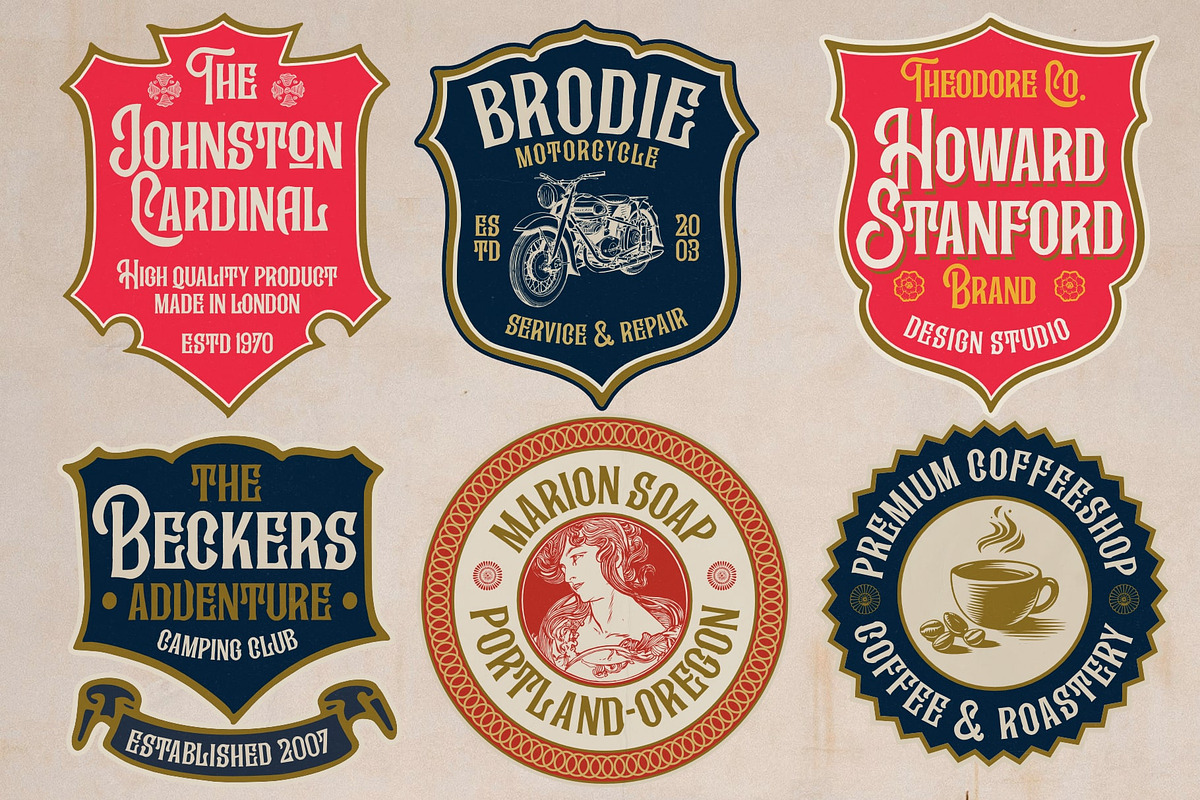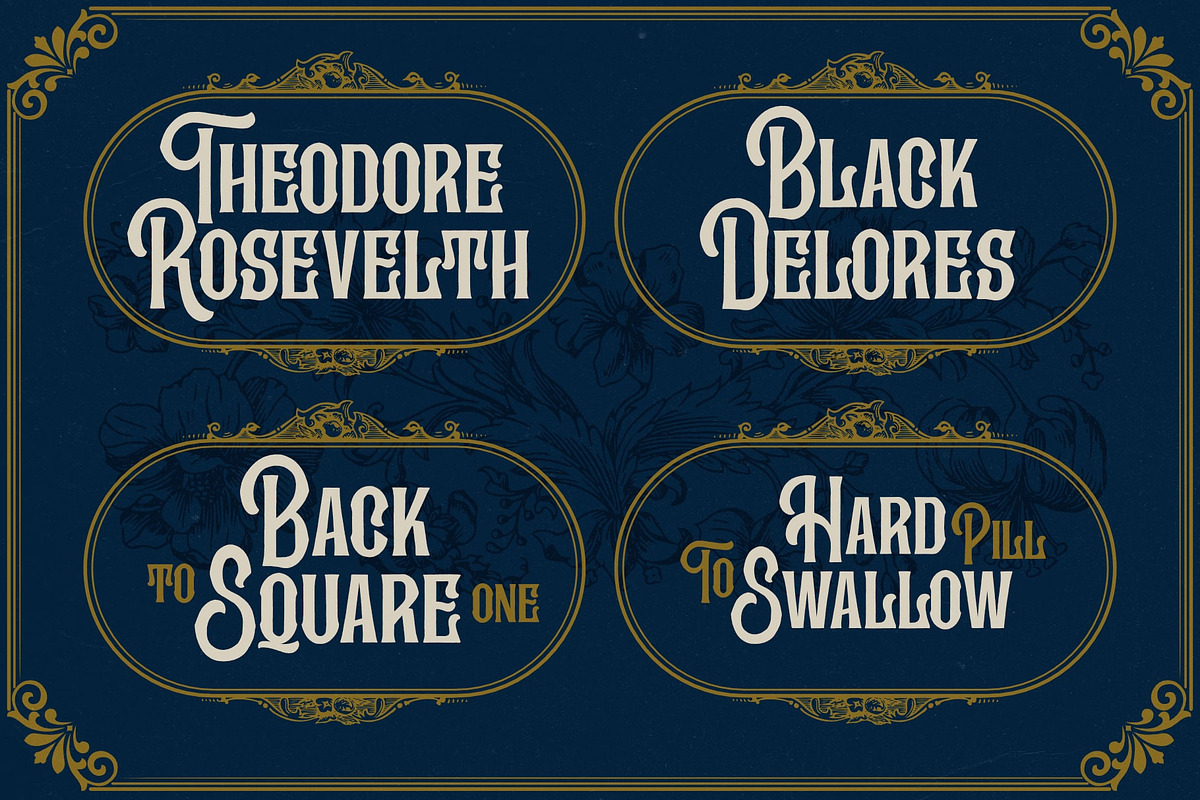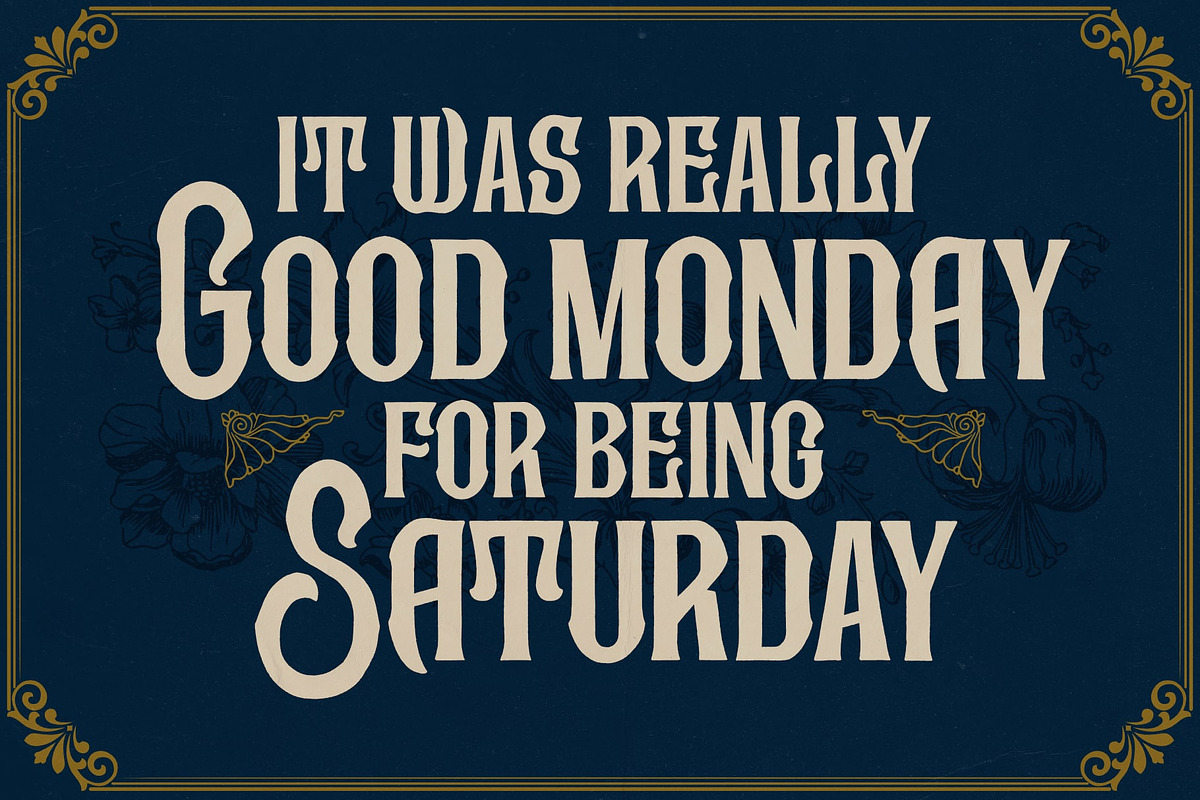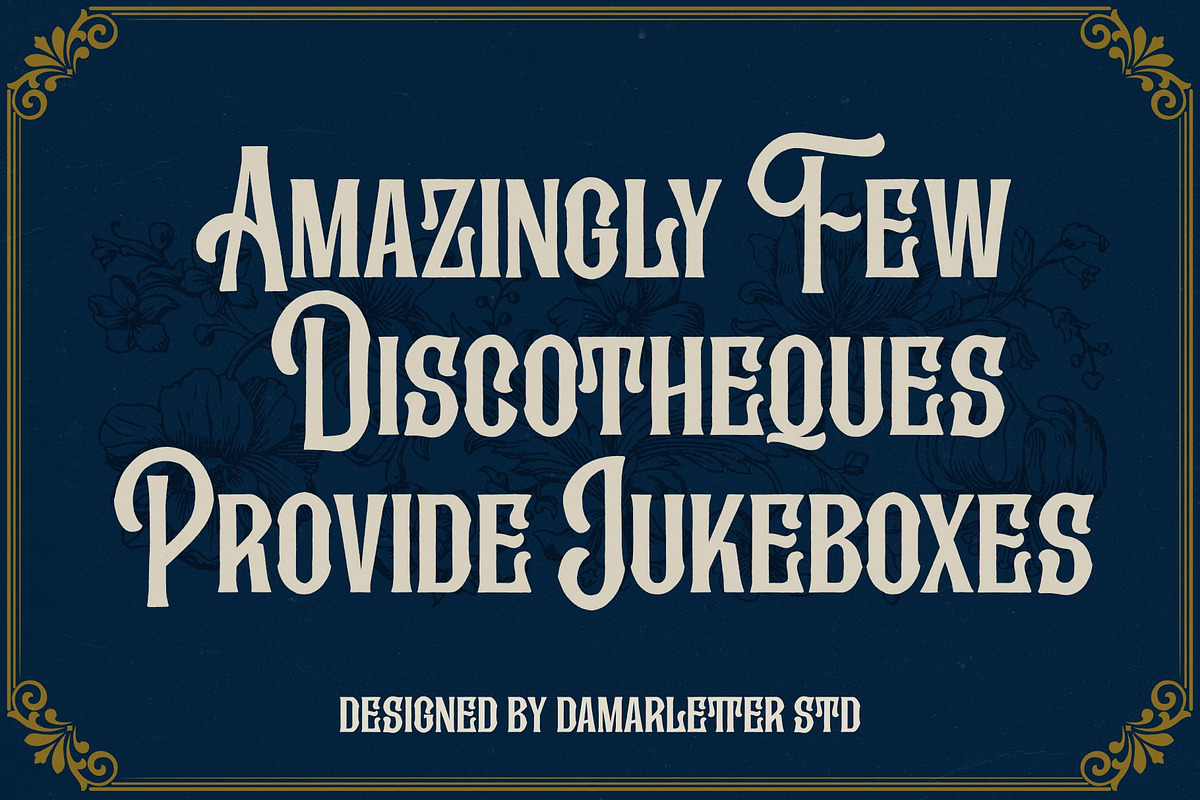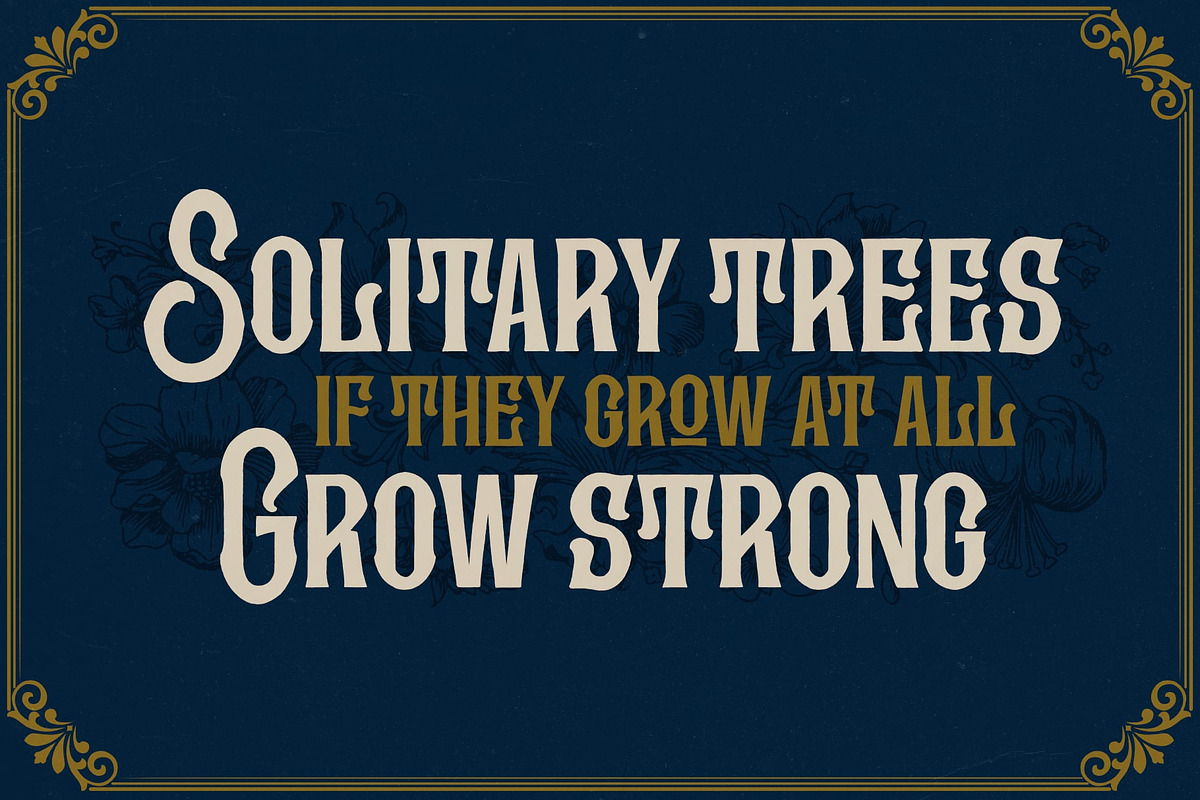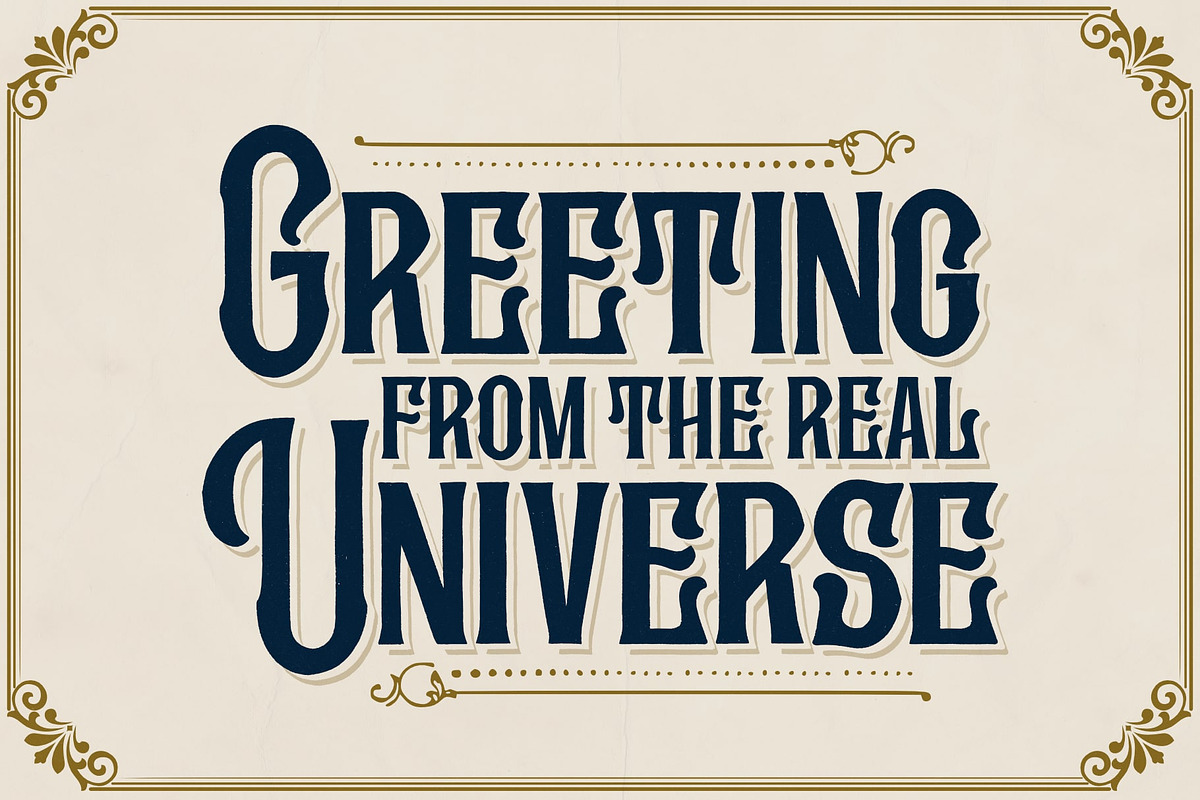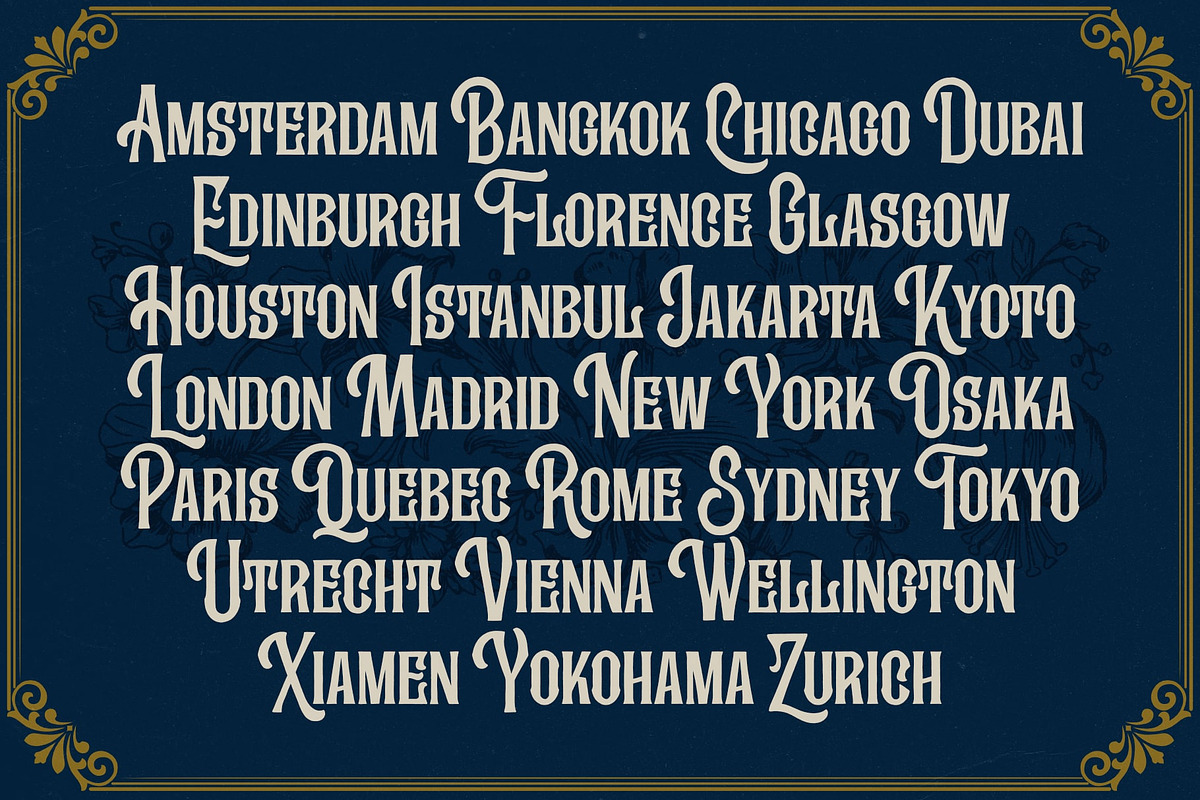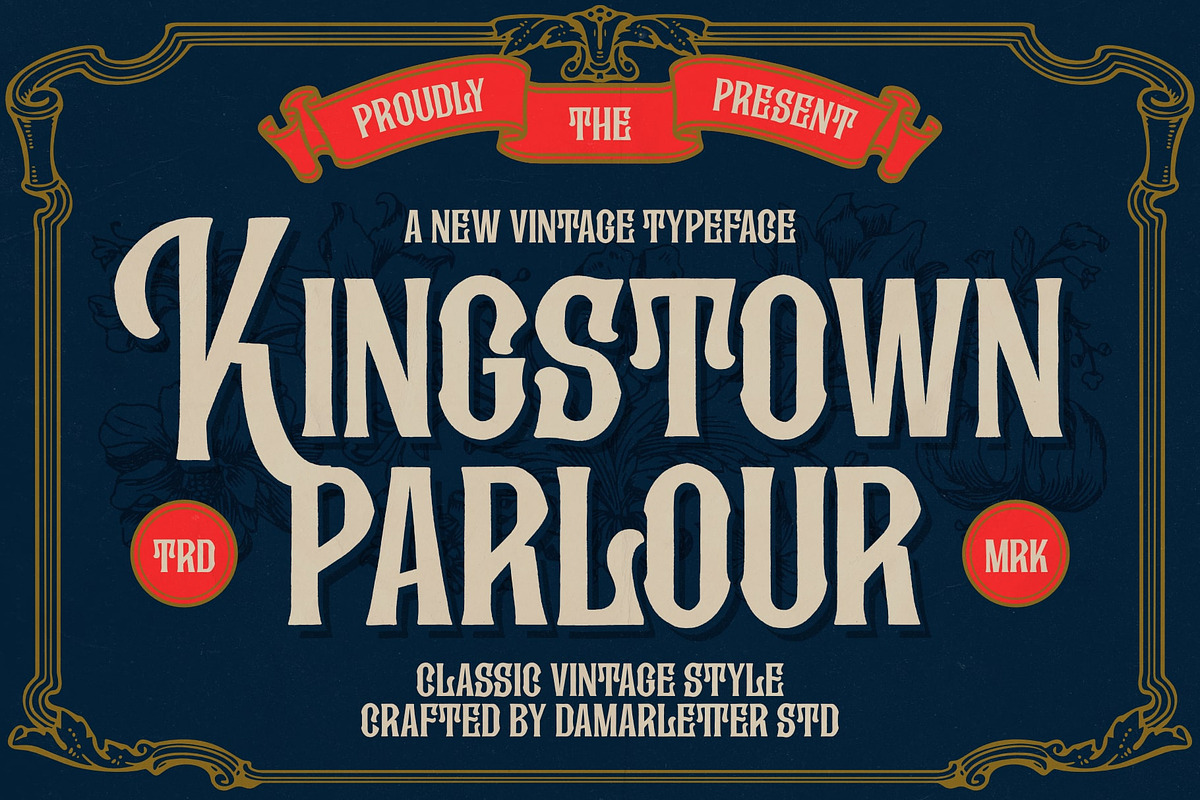
Kingstown parlour
Kingstown Parlour is a vintage typeface that exudes vintage typeface reminiscent of classic vintage signage and typography. This elegant font features intricate details, classic vintage style, creating a dramatic and refined aesthetic.